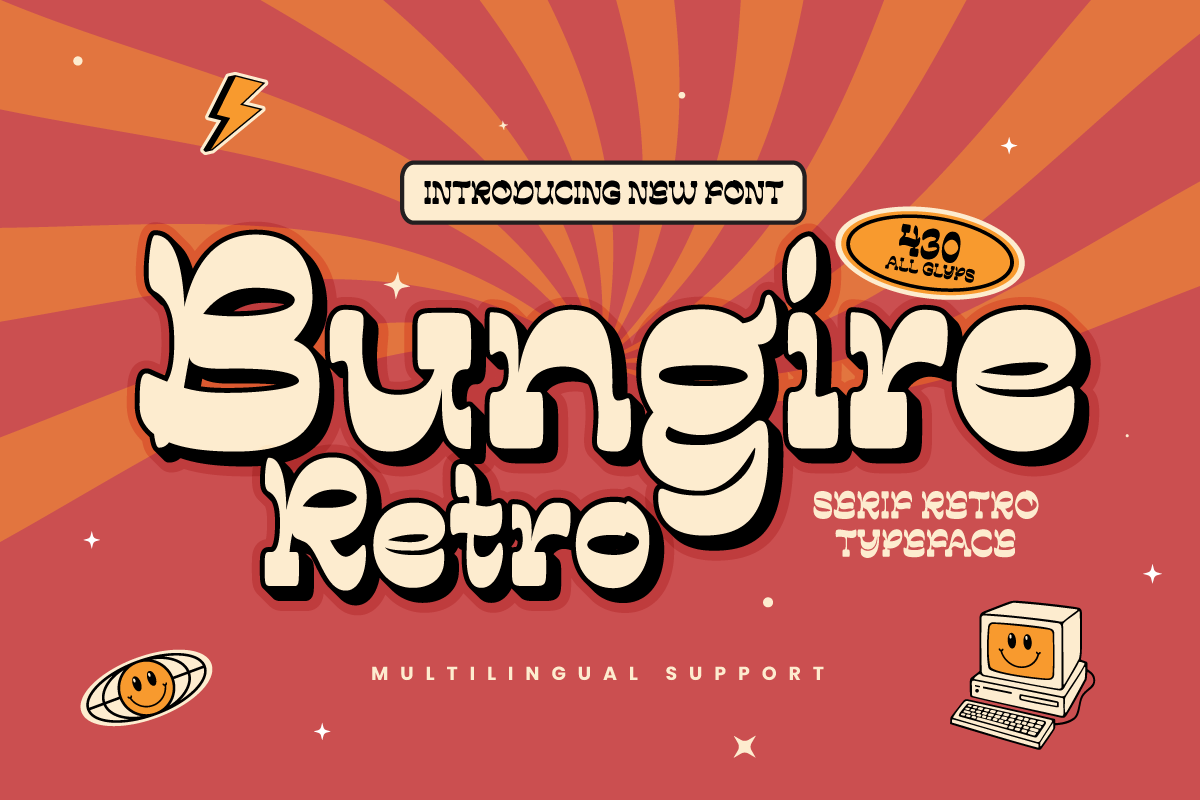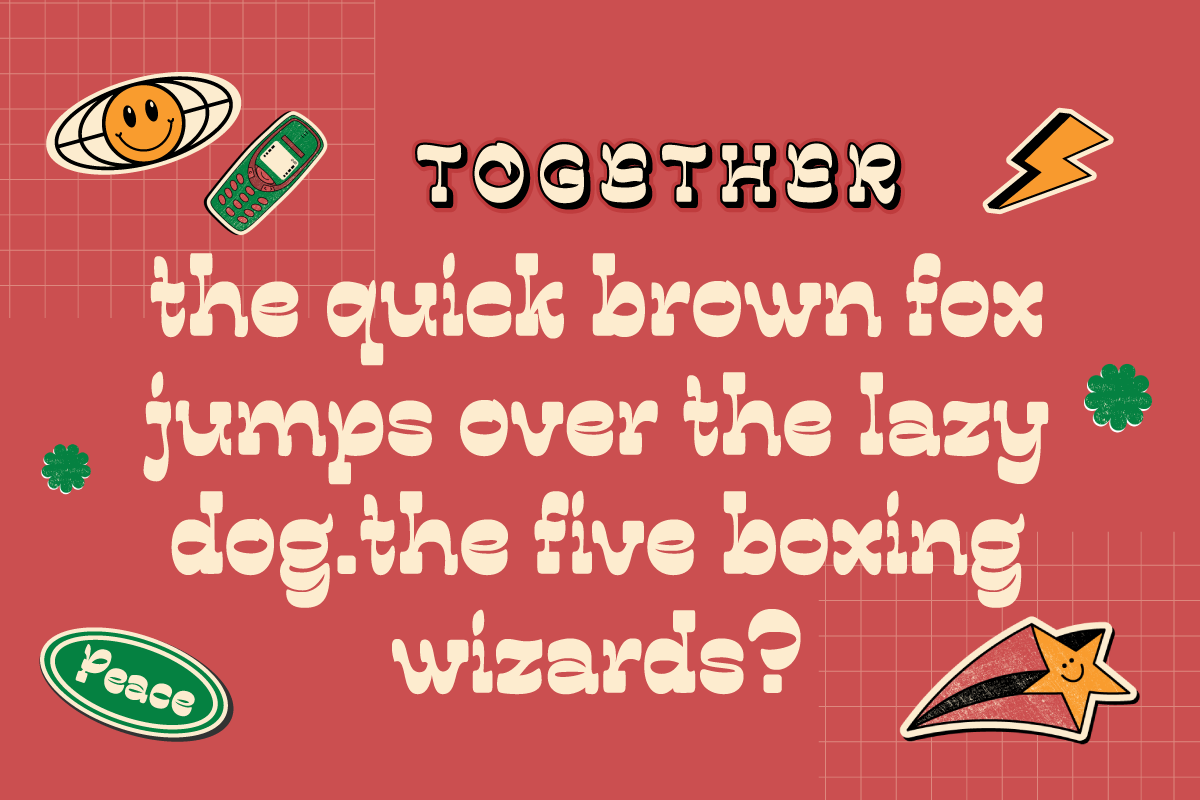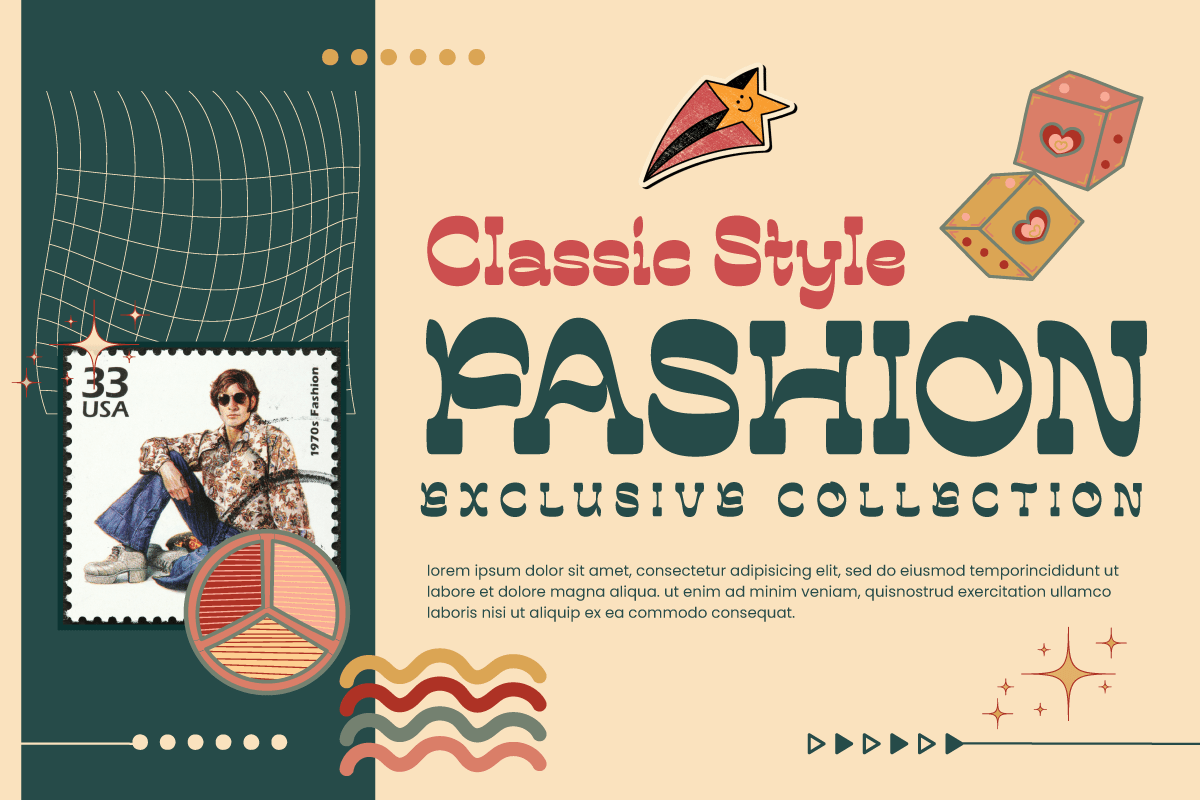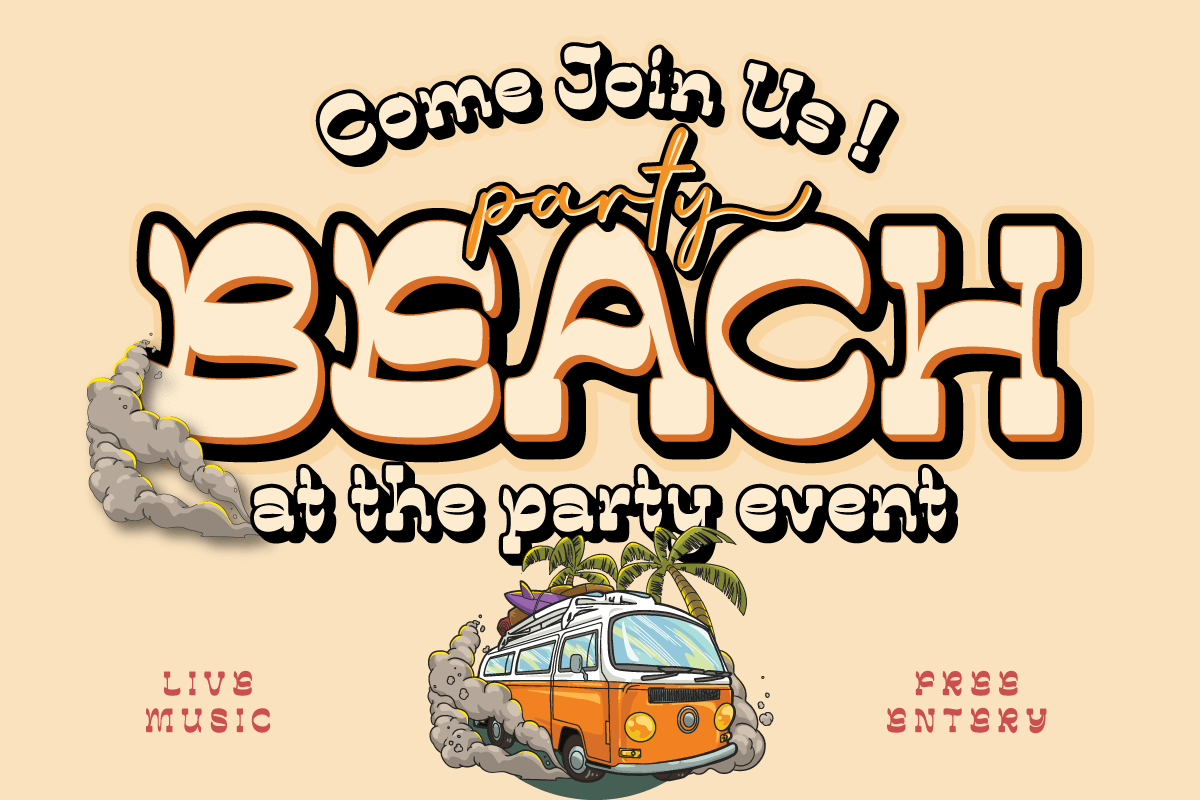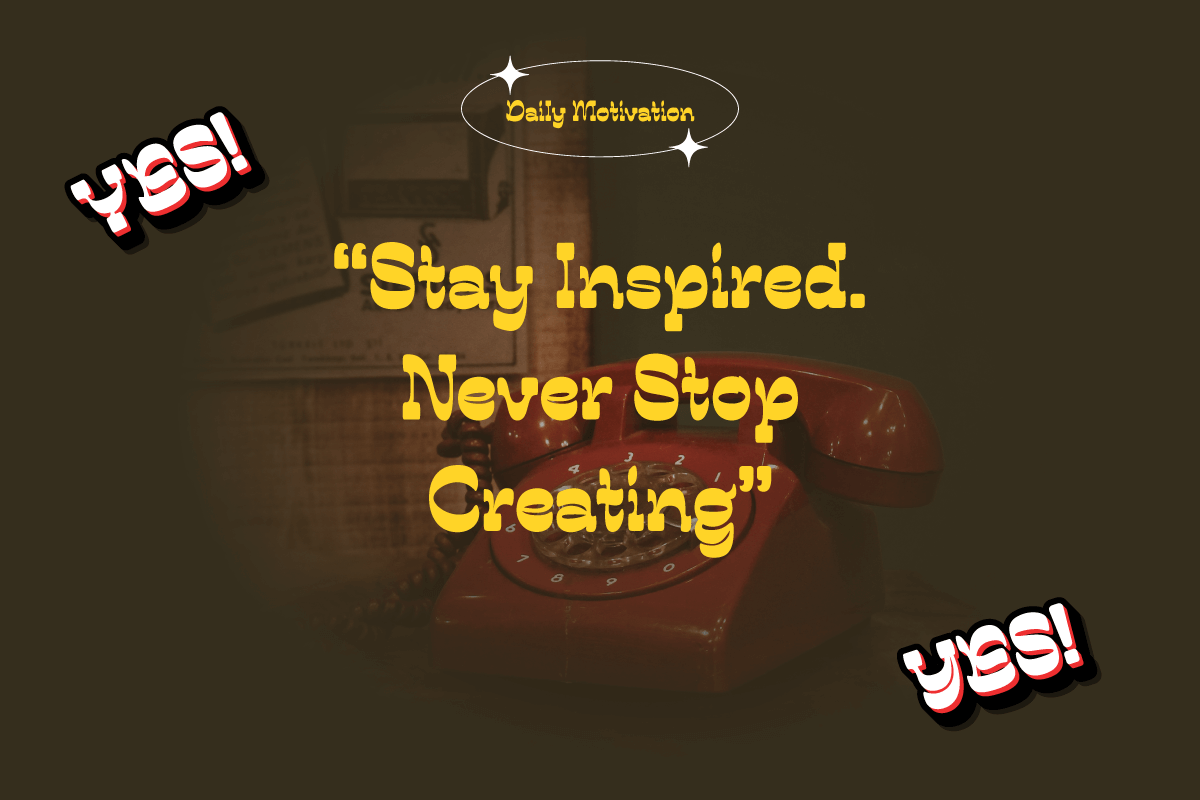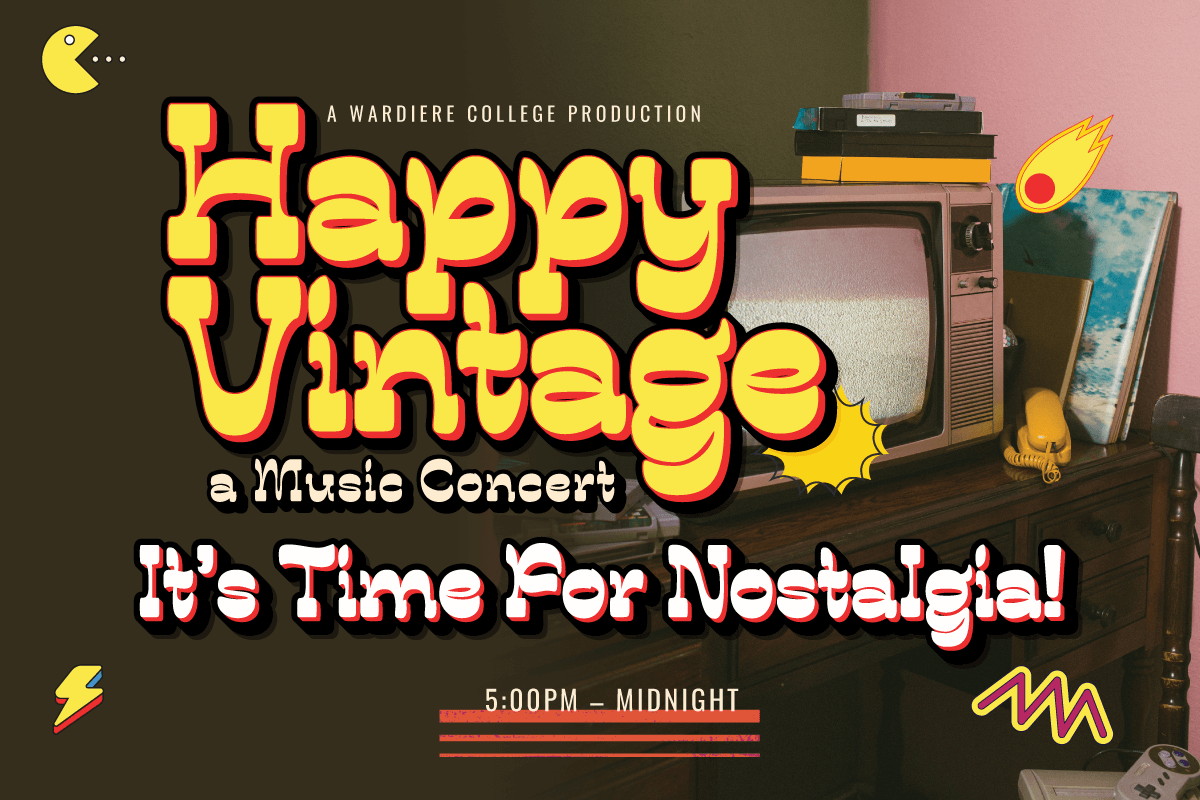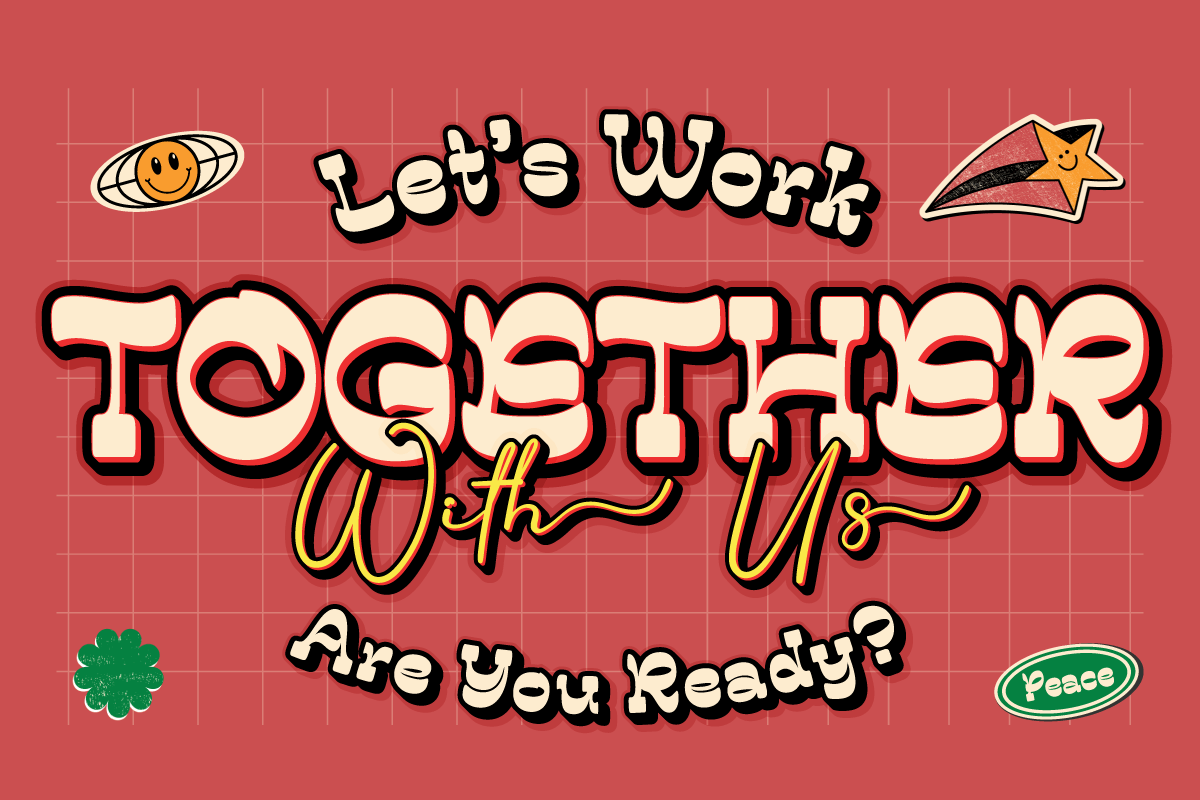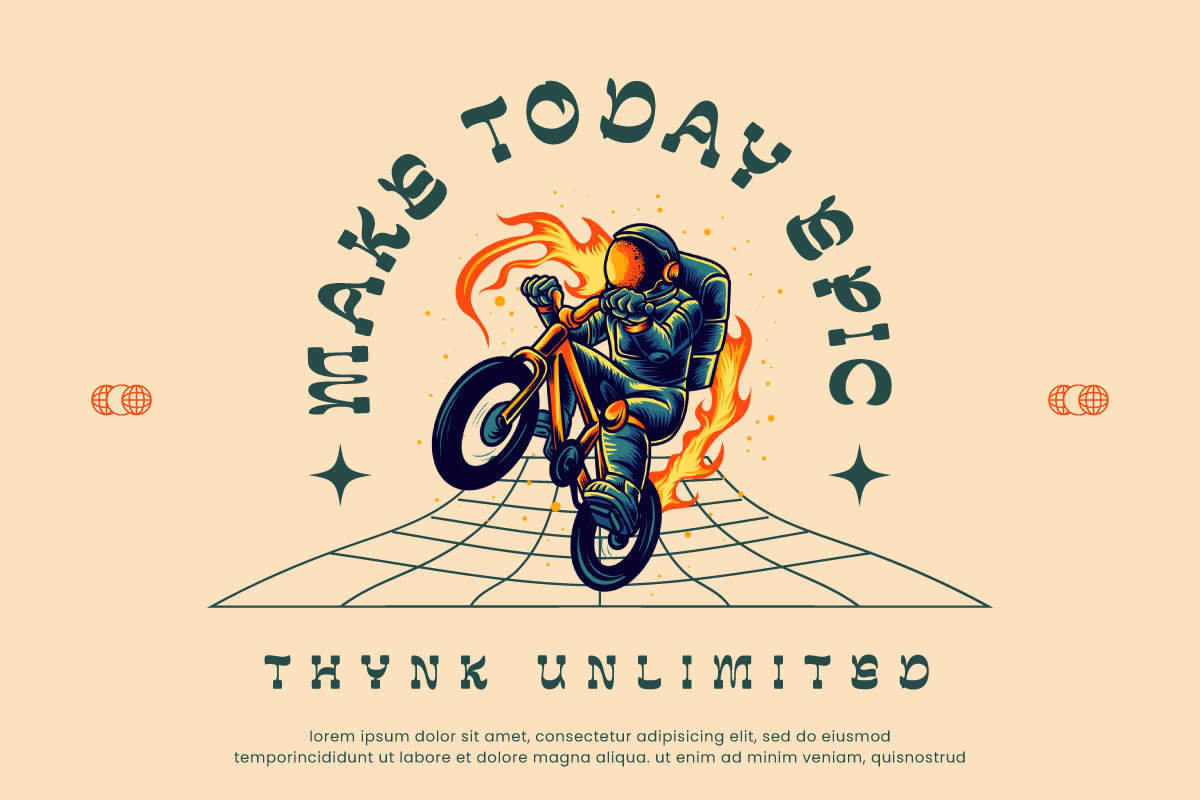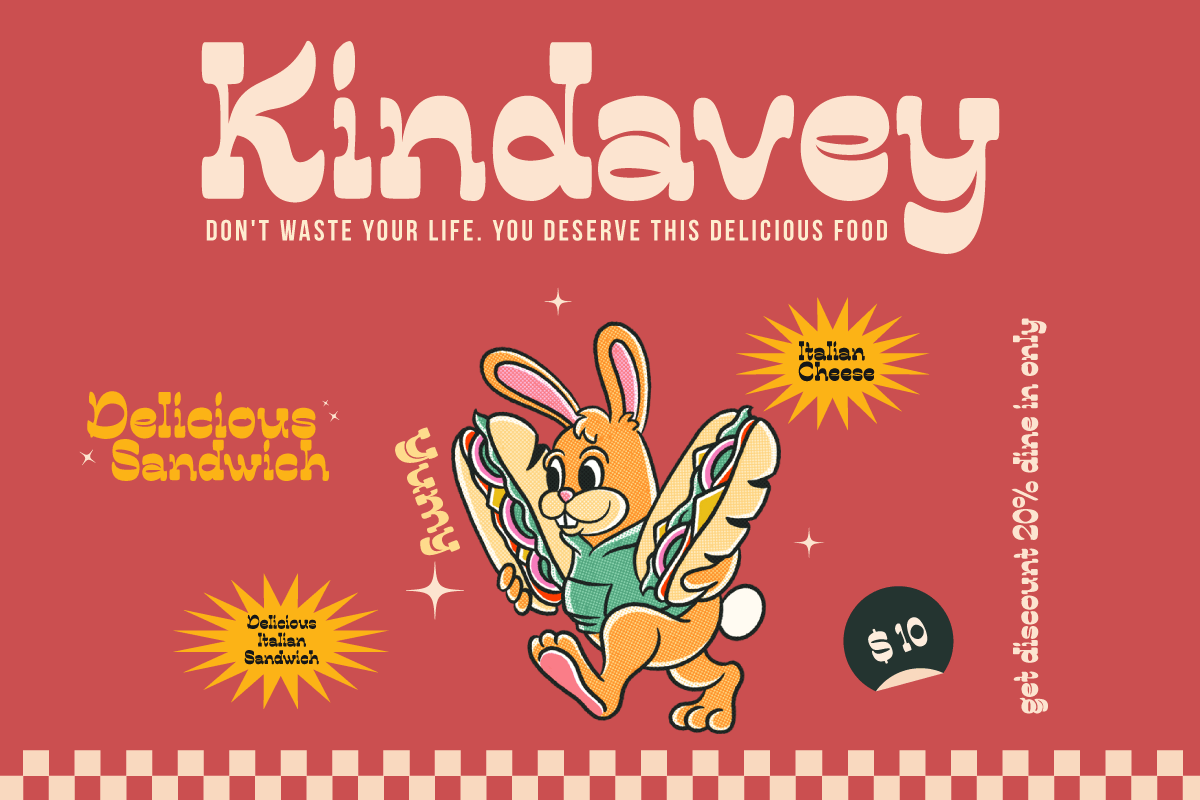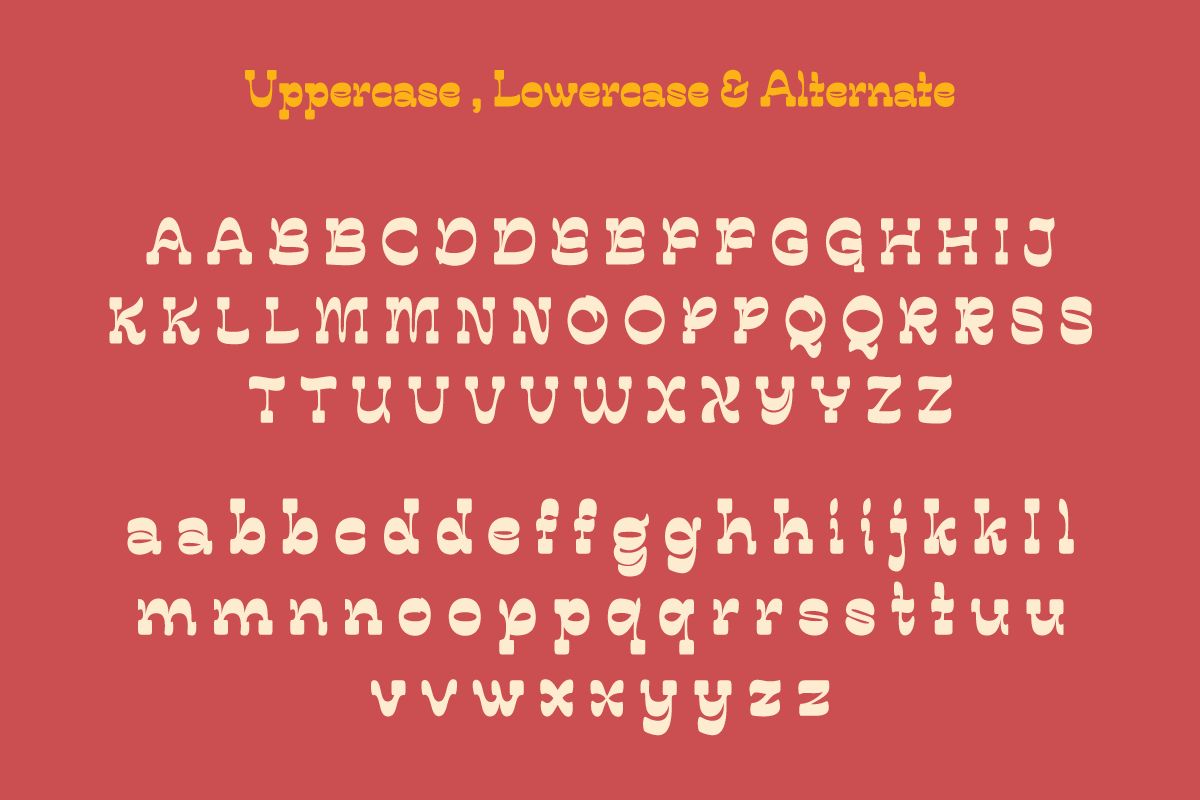
5. Bungire Retro – Serif Retro Font
Bungire Retro – Serif Retro Font
Introducing Bungire Retro, the ideal answer for your projects with a retro, vintage, or classic modernist theme! Bungire Retro is the perfect font for bringing a sense of nostalgia and charm to your creations because of its distinctive and eye-catching design.
With its extensive selection of alternates, Bungire Retro lets you personalize and produce genuinely distinctive typographic designs. When creating logos, posters, invitations, or other creative endeavors, Bungire Retro’s distinct retro vibes will enthrall your audience. Additionally, because of its linguistic support, it may be used for projects everywhere.